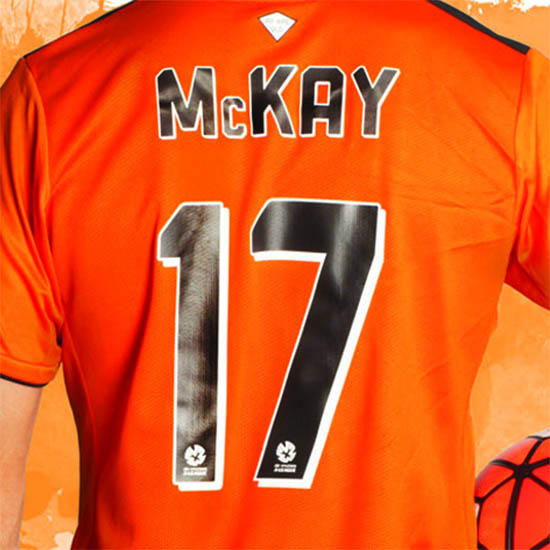
All-New Classy Hyundai A-League 2017-18 Font Revealed
In January 2017, Hyundai A-League revealed an all-new branding and logo, set to be used from the 2017-2018 season that is kicking off this Friday night. We take a look at the new Hyundai A-League 2017-2018 typeface, which draws inspiration from the league's new logo.
Hyundai A-League 2017-2018 Typeface
Here are some examples of the new A-League font on the Nike Melbourne City 17-18 kit.
The new Hyundai A-League 2017-2018 typeface features a standard shape while including sleek lines inspired by league logo. It is a much smoother design than the look of the previous font.
Previous Hyundai A-League Font with old league logo
The font is available in several different colors and comes with a monochromatic version of the new league logo on the bottom.